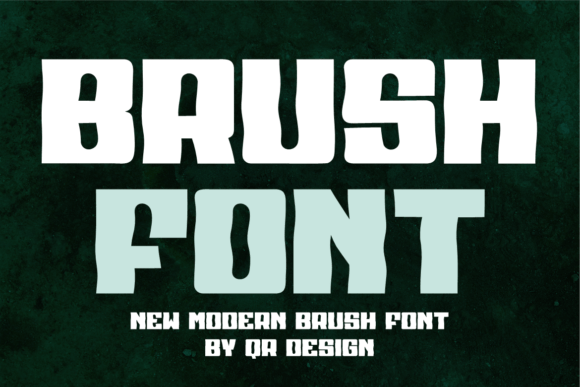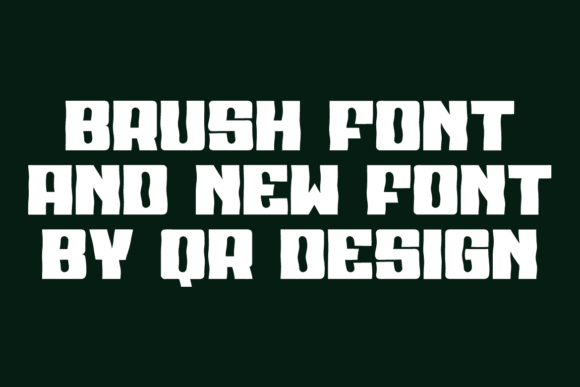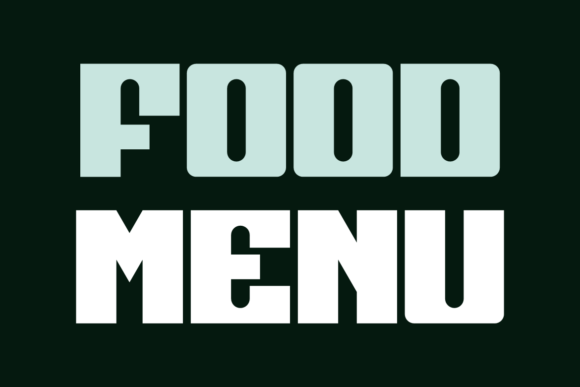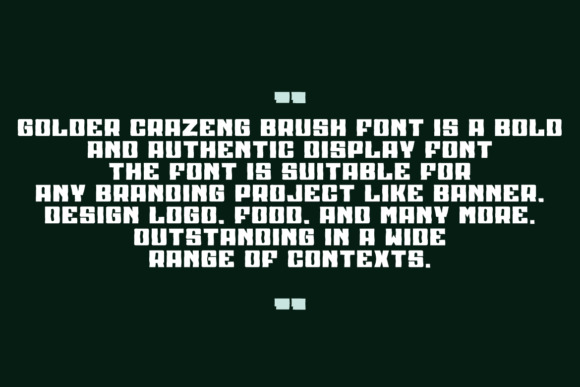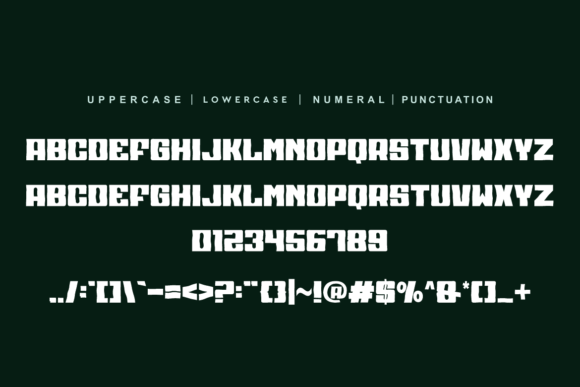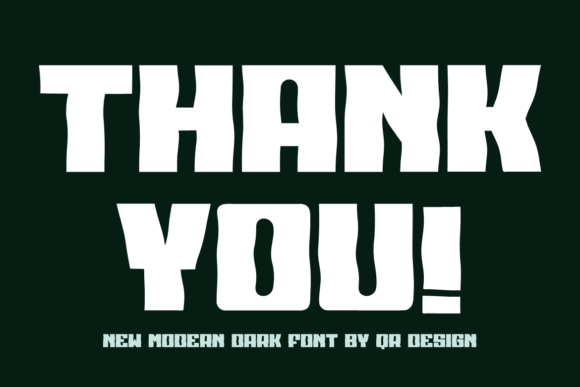
Golder Crazeng Brush Font: Elevate Your Designs with a Cool and Bold Sans Display Font
Are you tired of using the same old fonts in your designs? Do you want to add a touch of creativity and uniqueness to your projects? Look no further than the Golder Crazeng Brush Font! This cool and bold sans display font is perfect for designers and crafters who want to take their work to the next level.
What is Golder Crazeng Brush Font?
Golder Crazeng Brush Font is a sans-serif display font that features bold and chunky letters with a unique brush-like texture. The font is designed to give your text a fun, energetic, and playful look that’s perfect for a variety of design projects. Whether you’re working on a logo, poster, social media graphic, or website, this font is sure to make a statement.
Key Features of Golder Crazeng Brush Font
- Cool and Bold Design: The Golder Crazeng Brush Font features a bold and eye-catching design that’s perfect for making a statement.
- Unique Brush-Like Texture: The font’s brush-like texture gives it a unique and creative look that’s sure to set it apart from other fonts.
- Sans-Serif Design: The font’s sans-serif design makes it easy to read and perfect for use in a variety of design projects.
- High-Quality Design: The font is designed with high-quality and precision, ensuring that it looks great in any size or resolution.
Why Use Golder Crazeng Brush Font?
There are many reasons why you should consider using the Golder Crazeng Brush Font in your designs. Here are just a few:
- Add a Touch of Creativity: The Golder Crazeng Brush Font is perfect for designers who want to add a touch of creativity and uniqueness to their work.
- Perfect for Display Text: The font is designed specifically for display text, making it perfect for use in headlines, titles, and other prominent text elements.
- Easy to Read: Despite its bold and chunky design, the font is easy to read, making it perfect for use in a variety of design projects.
- Versatile: The font is versatile and can be used in a variety of design projects, from logos and posters to social media graphics and websites.
How to Use Golder Crazeng Brush Font
Using the Golder Crazeng Brush Font is easy! Here are just a few tips to get you started:
- Use it as a Display Font: The font is designed specifically for display text, so use it as a headline or title font to make a statement.
- Pair it with Other Fonts: The font pairs well with other sans-serif fonts, so consider pairing it with a simpler font for body text.
- Experiment with Colors: The font looks great in a variety of colors, so don’t be afraid to experiment and find the perfect color for your design.
If you’re looking for a cool and bold sans display font to elevate your designs, look no further than the Golder Crazeng Brush Font. With its unique brush-like texture and bold design, this font is perfect for designers and crafters who want to add a touch of creativity and uniqueness to their work. So why wait? Add it to your creative projects and enjoy the results!